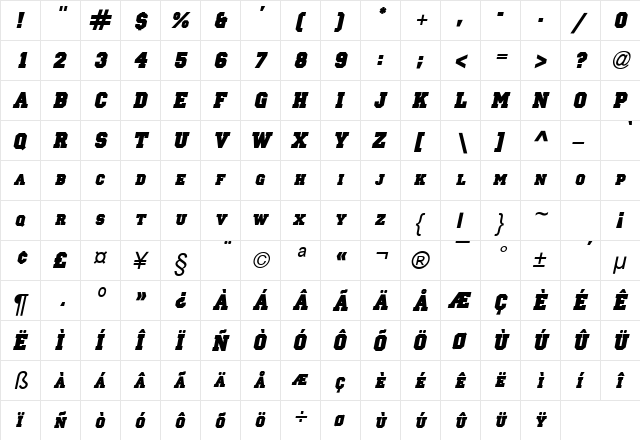
Princeton solid Italic
Design Context for Princeton solid Typeface
Princeton solid is a composed and adaptable typeface that performs quietly and consistently across a wide range of design contexts. The slanted form adds forward momentum and visual energy.
Pro Tip: Use Princeton solid for emphasis, pull quotes, and subheadings where its slanted energy can add rhythm to the layout.